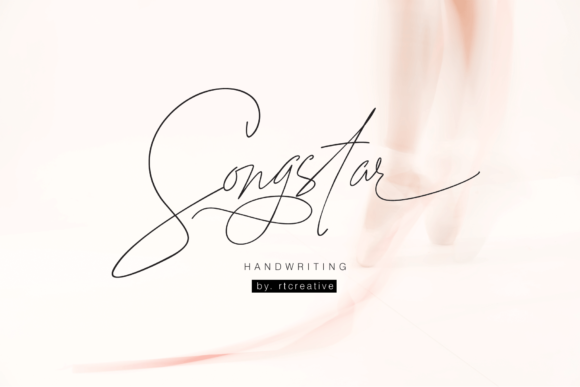
Unleash the allure of Songstar Font Duo, a symphony of handwritten beauty crafted by the ingenious Rt Creative. Songstar's enchanting script dances across your screen, mirroring the fluid strokes of a master calligrapher, evoking a sense of intimacy and heartfelt expression.
Immerse yourself in the versatility of Songstar's two captivating sets of letters. Stylistic Standard's graceful curves and elegant charm lend a sophisticated touch to your creations, while Stylistic Alternate unveils a playful spirit with its whimsical flourishes. The possibilities are endless, empowering you to craft designs that resonate with your unique aesthetic.
Embark on a typographic adventure with Songstar's comprehensive character set. From uppercase and lowercase letters to numbers and punctuation, every element is meticulously crafted to enhance your designs. Unleash your creativity with the addition of ligatures, adding a touch of refinement to your compositions.
Songstar's versatility extends far beyond the confines of mere text. Its enchanting form graces invitations, signatures, and blogs, adding a touch of elegance to every word you pen. Social media posts and business cards transform into captivating expressions of your brand identity, leaving a lasting impression on your audience.
Let Songstar's allure ignite your imagination as you create logos that command attention and wedding invitations that exude timeless romance. T-shirts, letterheads, and nameplates become canvases for your creativity, showcasing Songstar's ability to elevate the ordinary to the extraordinary.
Labels, news, posters, and badges are transformed into striking visual statements, capturing the essence of your message with Songstar's captivating presence. OpenType features lend themselves effortlessly to seamless integration with design software, granting you the power to unleash your typographic vision with ease.
Indulge in the captivating embrace of Songstar Font Duo, where the fusion of art and technology weaves a tapestry of beauty and versatility. Let your designs dance with the rhythm of Songstar's handwritten charm, captivating hearts and leaving an unforgettable mark on the digital realm.